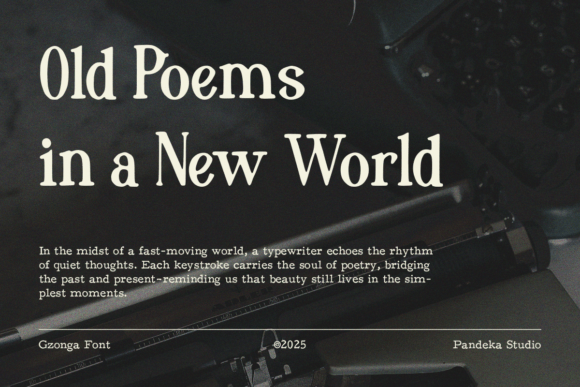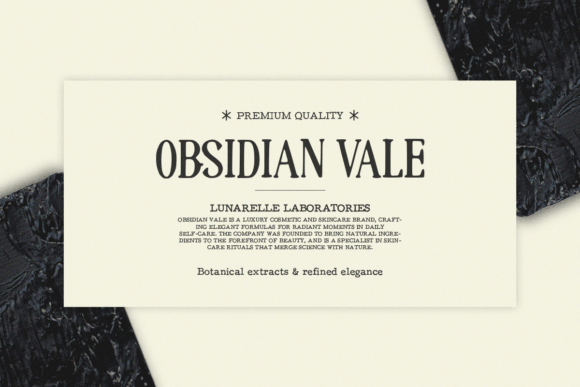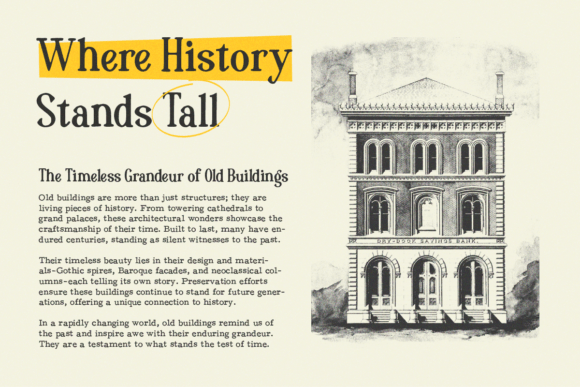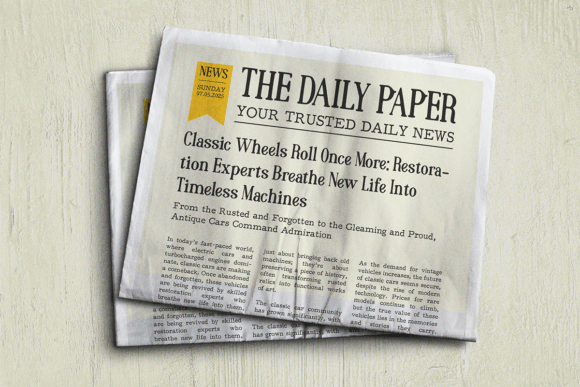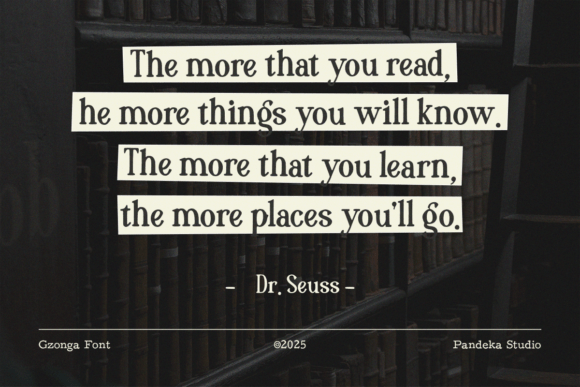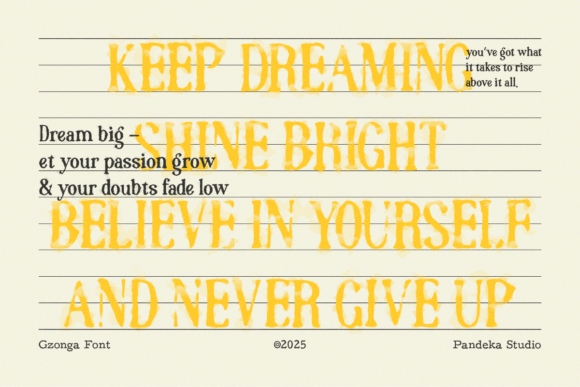
Gzonga Font: A Retro-Inspired Serif Typeface for Timeless Storytelling
In the world of typography, fonts play a crucial role in conveying the tone and personality of a brand, product, or story. For designers and crafters seeking a unique and captivating typeface, Gzonga Font is an exceptional choice. This retro-inspired serif font seamlessly blends vintage flair with editorial sophistication, making it perfect for a wide range of applications, from book covers and branding to magazine layouts and nostalgic packaging.
The Inspiration Behind Gzonga
Gzonga is designed to evoke the warmth and character of old newspapers and classic print. Its handcrafted curves and bold letterforms are reminiscent of a bygone era, when typography was an art form that commanded attention and respect. The font’s creator aimed to capture the essence of traditional printing, while infusing it with a modern twist that makes it suitable for contemporary design projects.
Key Features of Gzonga Font
Gzonga Font boasts a complete character set, ensuring that designers have access to a wide range of letters, numbers, and punctuation marks. This versatility makes it easy to use in various contexts, from lengthy texts to concise headlines. Some of the key features of Gzonga include:
- Retro-inspired serif typeface: Gzonga’s classic design is perfect for creating a nostalgic or vintage look.
- Handcrafted curves and bold letterforms: The font’s unique character is thanks to its carefully crafted curves and bold lettering.
- Complete character set: Gzonga includes a full range of letters, numbers, and punctuation marks.
- Versatile styling: The font can be used in a variety of contexts, from editorial design to branding and packaging.
Applications for Gzonga Font
Gzonga Font is an incredibly versatile typeface, suitable for a wide range of design projects. Some of the most popular applications for Gzonga include:
- Book covers: Gzonga’s classic design and bold letterforms make it perfect for book covers that require a touch of nostalgia and sophistication.
- Branding: The font’s unique character and versatility make it an excellent choice for branding projects that require a distinctive voice.
- Magazine layouts: Gzonga’s serif design and handcrafted curves make it well-suited for editorial design, particularly in magazine layouts.
- Nostalgic packaging: The font’s retro-inspired design makes it perfect for packaging projects that require a vintage or classic look.
Why Choose Gzonga Font?
For designers and crafters seeking a typeface that combines heritage with modern storytelling, Gzonga Font is an exceptional choice. Here are just a few reasons why:
- Timeless voice: Gzonga gives your message a timeless voice that resonates with audiences.
- Emotional connection: The font’s handcrafted curves and bold letterforms create an emotional connection with readers.
- Standout typographic impact: Gzonga’s unique character ensures that your design stands out from the crowd.
- History and heritage: The font’s classic design and vintage flair evoke a sense of history and heritage.
Gzonga Font is a unique and captivating typeface that blends vintage flair with editorial sophistication. Its handcrafted curves, bold letterforms, and complete character set make it perfect for a wide range of design projects, from book covers and branding to magazine layouts and nostalgic packaging. For designers and crafters seeking a timeless voice that resonates with audiences, Gzonga Font is an exceptional choice.
Whether you’re looking to evoke a sense of nostalgia, create an emotional connection with readers, or simply add a touch of sophistication to your design, Gzonga Font is the perfect tool for the job. With its versatility, unique character, and timeless voice, Gzonga is sure to become a go-to typeface for designers and crafters around the world.